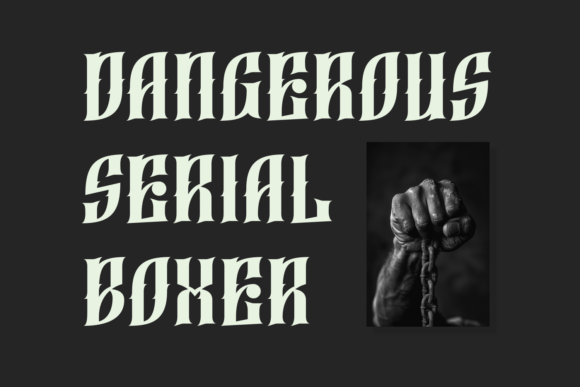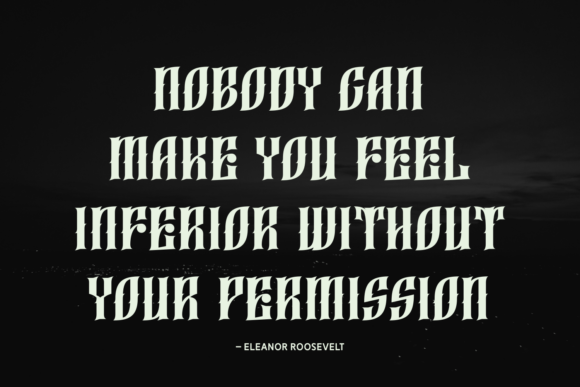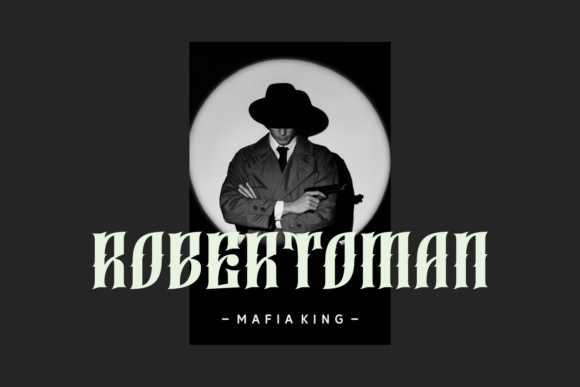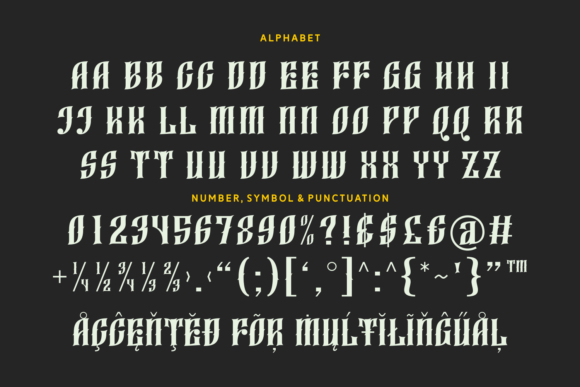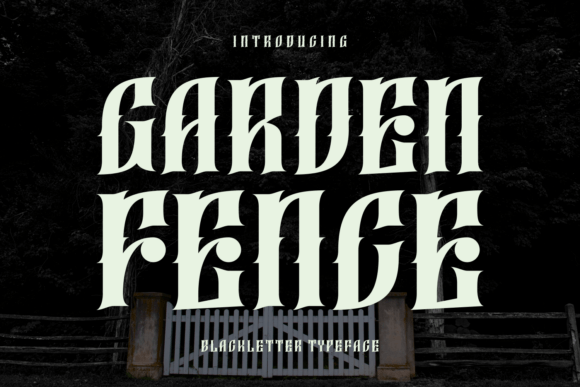
Garden Fence Font: A Bold Blackletter Typeface for Dramatic Designs
In the world of typography, a font can make or break a design. For designers and crafters looking to add a touch of drama and edge to their projects, the Garden Fence font is an excellent choice. This bold blackletter typeface combines strong Gothic-inspired strokes and sharp edges to command attention and make a lasting impression.
The Inspiration Behind Garden Fence
Garden Fence is not just another font; it’s a statement piece. Its design draws inspiration from traditional Gothic typography, but with a modern twist that sets it apart from more traditional typefaces. This blend of old and new makes Garden Fence a versatile font suitable for a wide range of applications, from vintage-style branding to contemporary designs.
Key Features of Garden Fence Font
- Bold and Dramatic: Garden Fence is characterized by its bold, dramatic strokes that are sure to make your designs stand out.
- Gothic-Inspired: The font’s Gothic roots give it a classic, timeless feel that works well for designs that require a sense of tradition.
- Sharp Edges: The sharp edges of Garden Fence add to its edgy aesthetic, making it perfect for designs that need a bit of an attitude.
- Versatile: Whether you’re working on posters, tattoos, logos, band artwork, merchandise, or vintage-style branding, Garden Fence is up to the task.
Uses for Garden Fence Font
The versatility of Garden Fence makes it suitable for a variety of design projects. Here are some of the top uses for this powerful typeface:
- Posters: Create eye-catching posters for concerts, events, or promotions with Garden Fence.
- Tattoos and Body Art: The bold, dramatic design of Garden Fence makes it a popular choice for tattoo artists and body art enthusiasts.
- Logos and Branding: Use Garden Fence to create memorable logos and branding materials that stand out from the crowd.
- Band Artwork: Musicians and bands looking for a unique, edgy look for their album covers and promotional materials will love Garden Fence.
- Merchandise: From t-shirts to mugs, Garden Fence can add a bold, eye-catching element to your merchandise designs.
- Vintage-Style Branding: The font’s classic Gothic roots make it perfect for vintage-style branding and packaging.
Why Choose Garden Fence Font?
With so many fonts available, why choose Garden Fence? Here are a few reasons why designers and crafters are drawn to this typeface:
- Uniqueness: Garden Fence offers a unique blend of traditional and modern elements that set it apart from other fonts.
- Legibility: Despite its bold, dramatic design, Garden Fence remains highly legible, making it suitable for a wide range of applications.
- Customization: The font’s versatility means it can be customized to fit your specific design needs.
Garden Fence font is a powerful tool for designers and crafters looking to add a bold, dramatic element to their projects. Its unique blend of Gothic-inspired strokes and sharp edges makes it perfect for a wide range of applications, from posters and tattoos to logos and vintage-style branding. With its legibility, versatility, and customization options, Garden Fence is an excellent choice for anyone looking to make a statement with their designs.